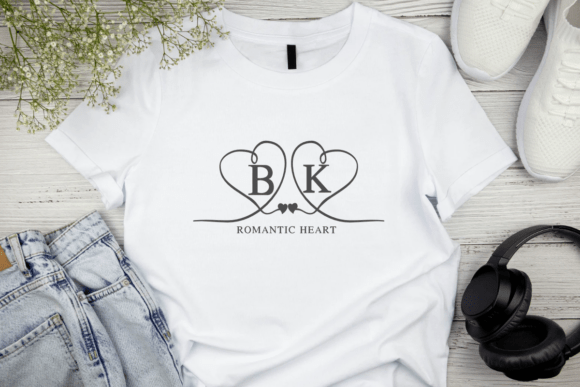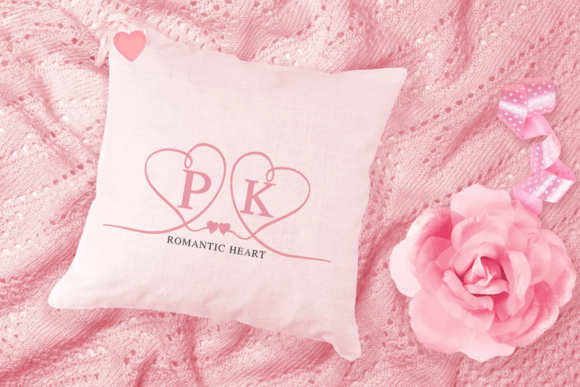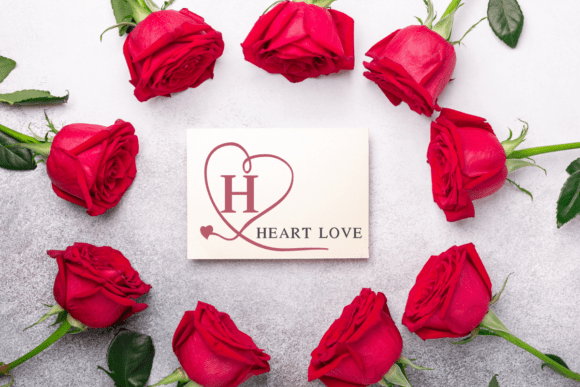
Introduction to Romantic Heart Line Font Font
Fonts play a crucial role in design, and the Romantic Heart Line Font font is a typeface that brings both character and versatility to any project. Whether you’re working on a branding project, a website, or a print design, the Romantic Heart Line Font font offers a unique style that can elevate your work.
Weave a tale of romance and connection with the elegant Romantic Heart Line Decorative Font.
This sophisticated decorative font is designed to create beautiful, flowing graphic monograms The Romantic Heart Line font features capital letters gracefully framed and connected by a single, continuous, stylized line that forms an intertwined heart shape between the two initials.
Key Features of Romantic Heart Line Font Font
Why Choose Romantic Heart Line Font Font?
The Romantic Heart Line Font font is more than just a typeface – it’s a design tool that helps you communicate your message with style and clarity. Its unique character set and versatile design make it suitable for a wide range of applications, from elegant invitations to bold headlines.
With its carefully crafted letterforms and balanced proportions, the Romantic Heart Line Font font ensures readability and visual appeal across all mediums.
What makes Romantic Heart Line Font font special?
The Romantic Heart Line Font font stands out with its unique design, exceptional readability, and versatility across various design applications.